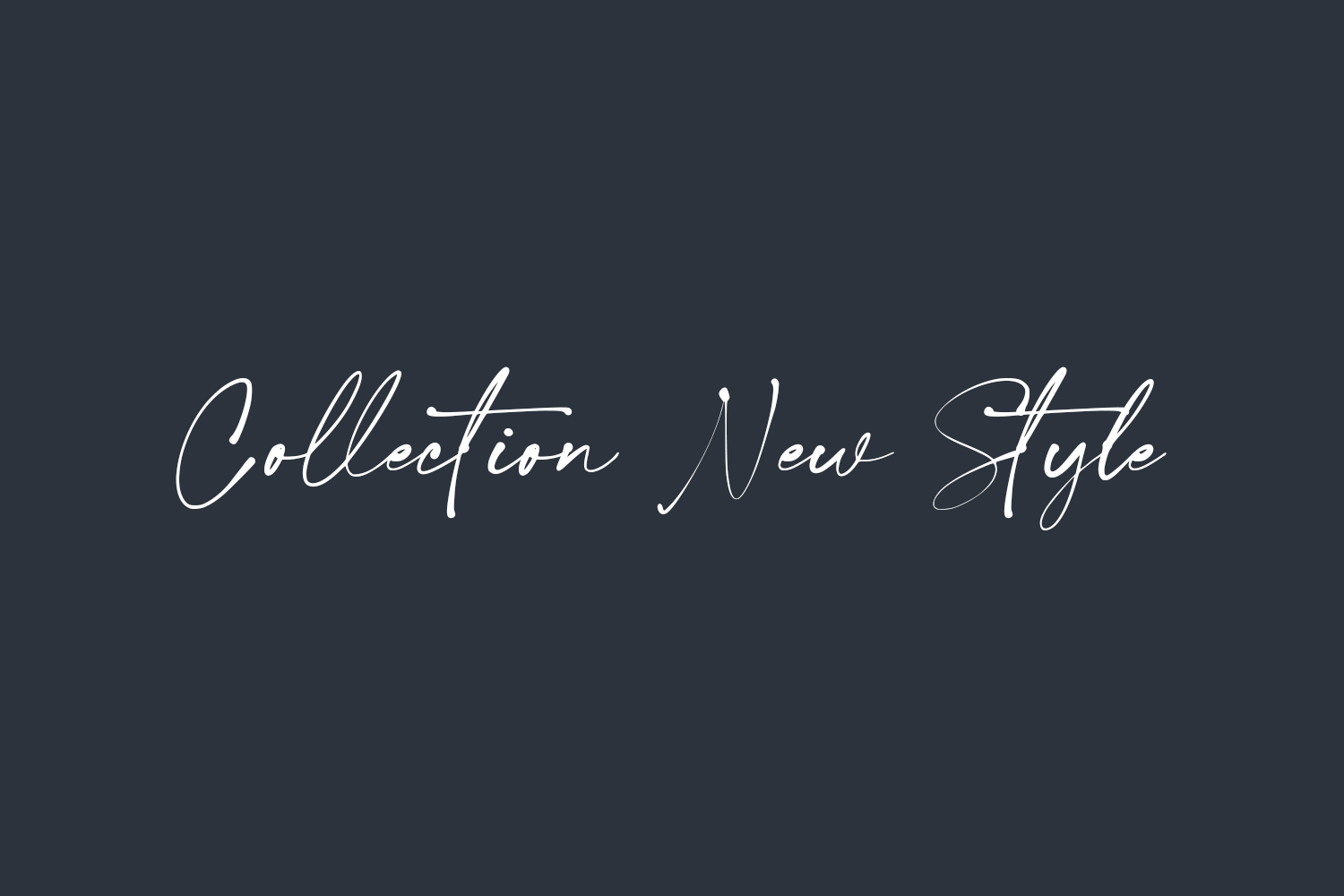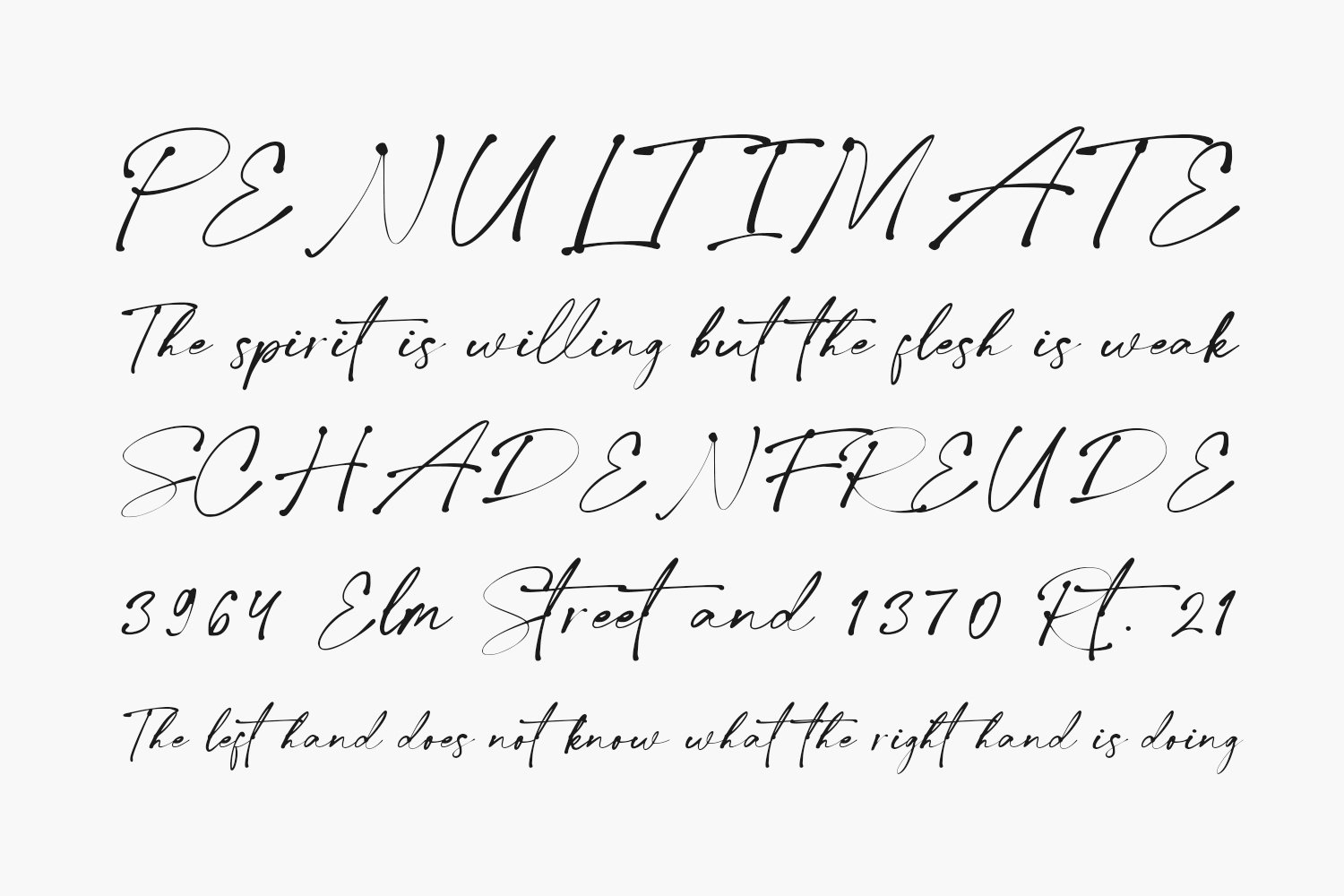
Collection New Style Free Font is a lovely and timeless handwritten font. It is the best choice for creating eye catching logos, branding, and quotes. Collection New Style Free Font was designed by alphArtype and is free for personal use only. Please purchase the full version for commercial use.
Collection New Style Regular The quick brown fox jumps over the lazy dog